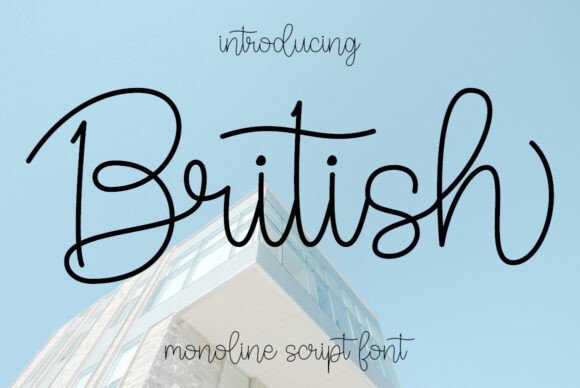
The British Font: A Simple yet Whimsical Design Companion
I’ll never forget the moment I stumbled upon the British font. I was working on a wedding invitation project, and my client had a very specific vision: elegant, yet playful; sophisticated, yet approachable. I had spent hours scouring font libraries, but nothing seemed quite right. That was when I discovered British – a simple and friendly handwritten font that instantly brightened up my design.
So, what makes British so special? Let’s dive into the good stuff and a few quirks I’ve noticed.
• ✨ Whimsical yet approachable: British has this unique ability to feel both playful and elegant at the same time.
• ✅ Highly versatile: From logos and wedding invitations to quotes and advertisements, this font adapts beautifully.
• 💕 Easy on the eyes: The clean lines and simple letterforms make it a joy to read, even in smaller sizes.
While British is an excellent font, there are a few things to keep in mind:
• 🤔 Limited formal use: Due to its playful nature, British might not be the best choice for very formal projects or corporate branding.
• ⚠️ Glyph variety: While it has a good range of characters, you might find the selection of glyphs and stylistic alternates a bit limited compared to more extensive font libraries.
The Story Behind British
British was designed with the intention of creating a font that feels both approachable and stylish. The designer aimed to capture the essence of friendly, everyday handwriting, making it perfect for a wide range of creative projects. While the exact details of the font’s creation might be shrouded in mystery, its charm and versatility have won over many designers.
Q: What makes British a good choice for logos?
A: British is a good choice for logos because of its unique blend of simplicity and friendliness. It’s memorable, easy to read, and can be adapted to various design needs.
Q: Is British suitable for body text?
A: While British is beautiful, it’s more suited for headings and short paragraphs due to its playful nature. For longer body text, a more traditional font might be easier to read.
Q: Does British support OpenType features?
A: Yes, British supports OpenType features, including glyphs and stylistic alternates. This allows for more creative freedom in your designs.